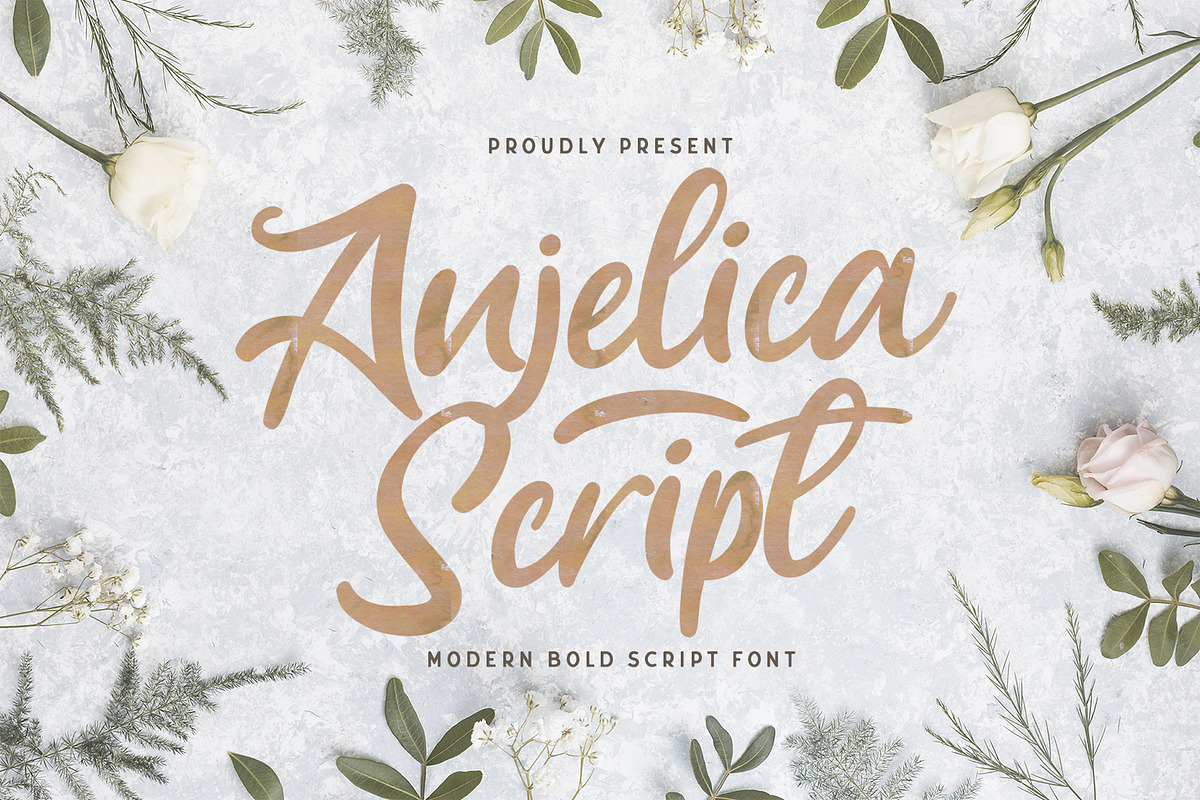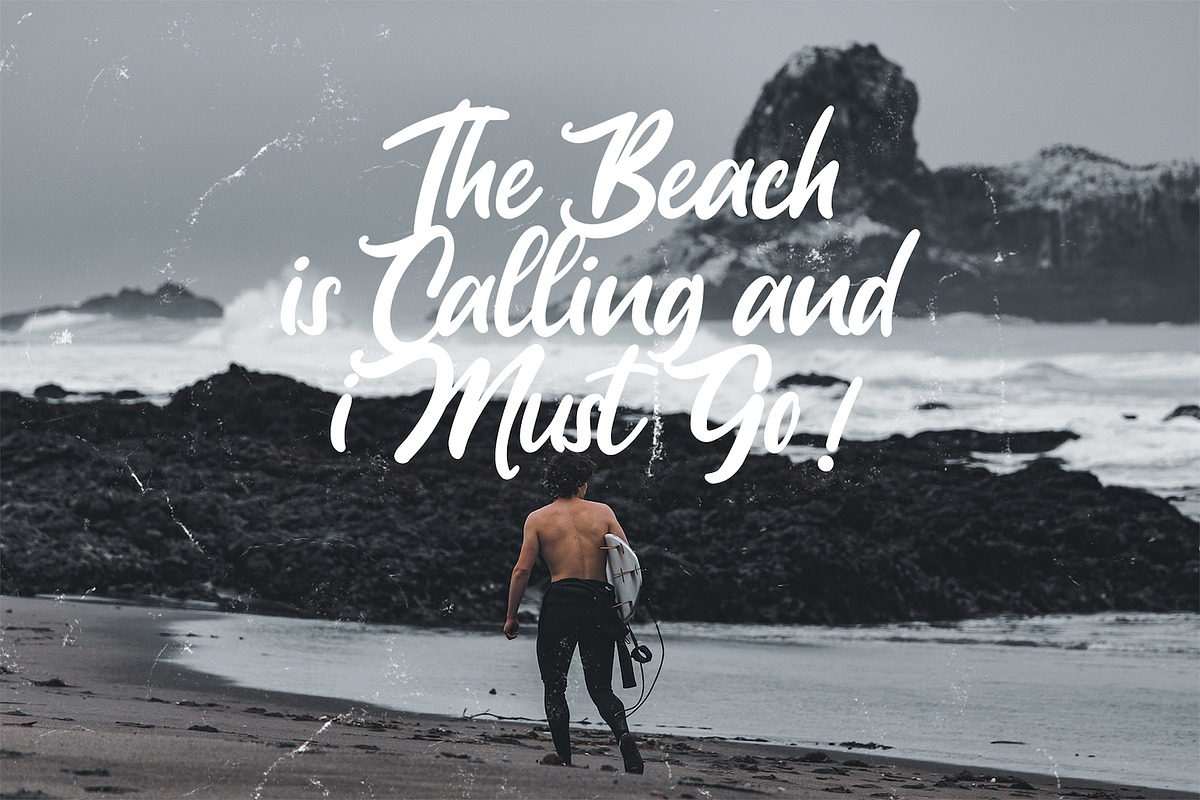
Anjelica Script - Bold Script Font
Introducing Anjelica Script - Bold Script Font
The Anjelica Script is a strong and bold script font. It’s curved and rounded in every single touch, and has an unique vintage and retro styles that’s perfect for branding.
Why Anjelica Script - Bold Script Font is worth a look
Anjelica Script - Bold Script Font by StringLabs fits naturally into Branding, posters, packaging, typography.